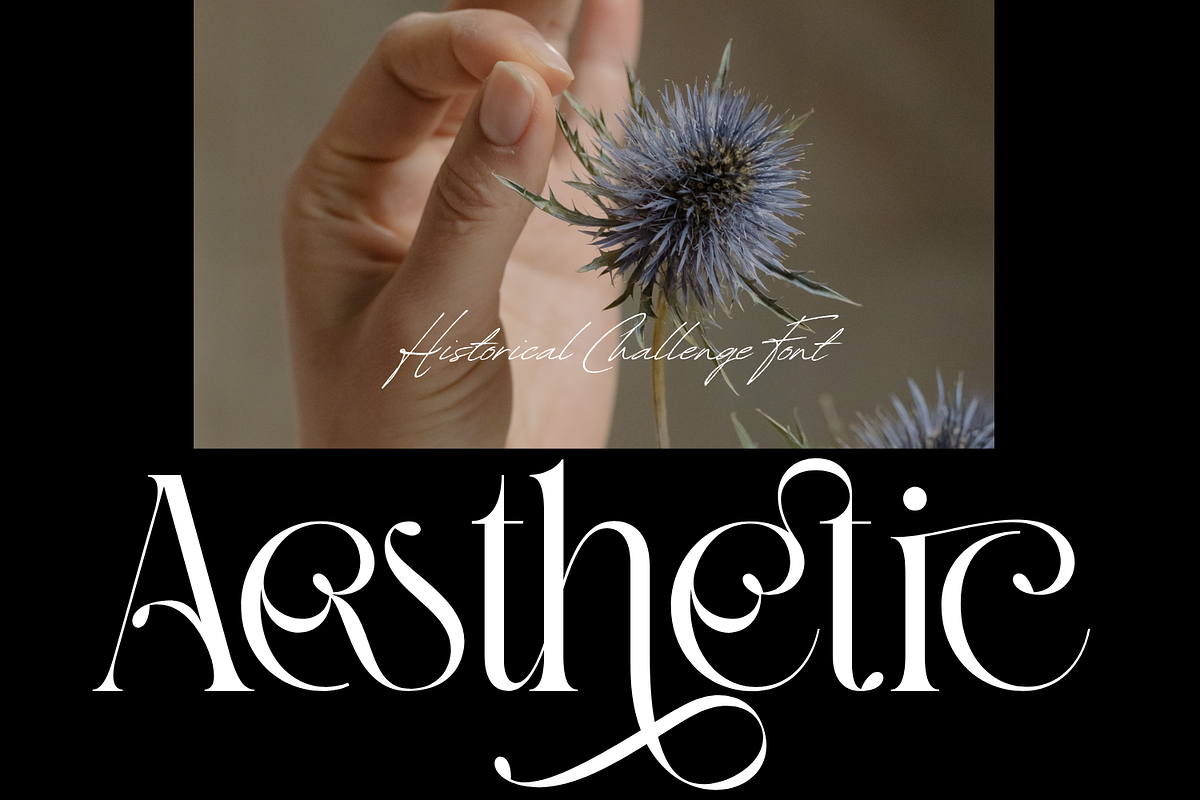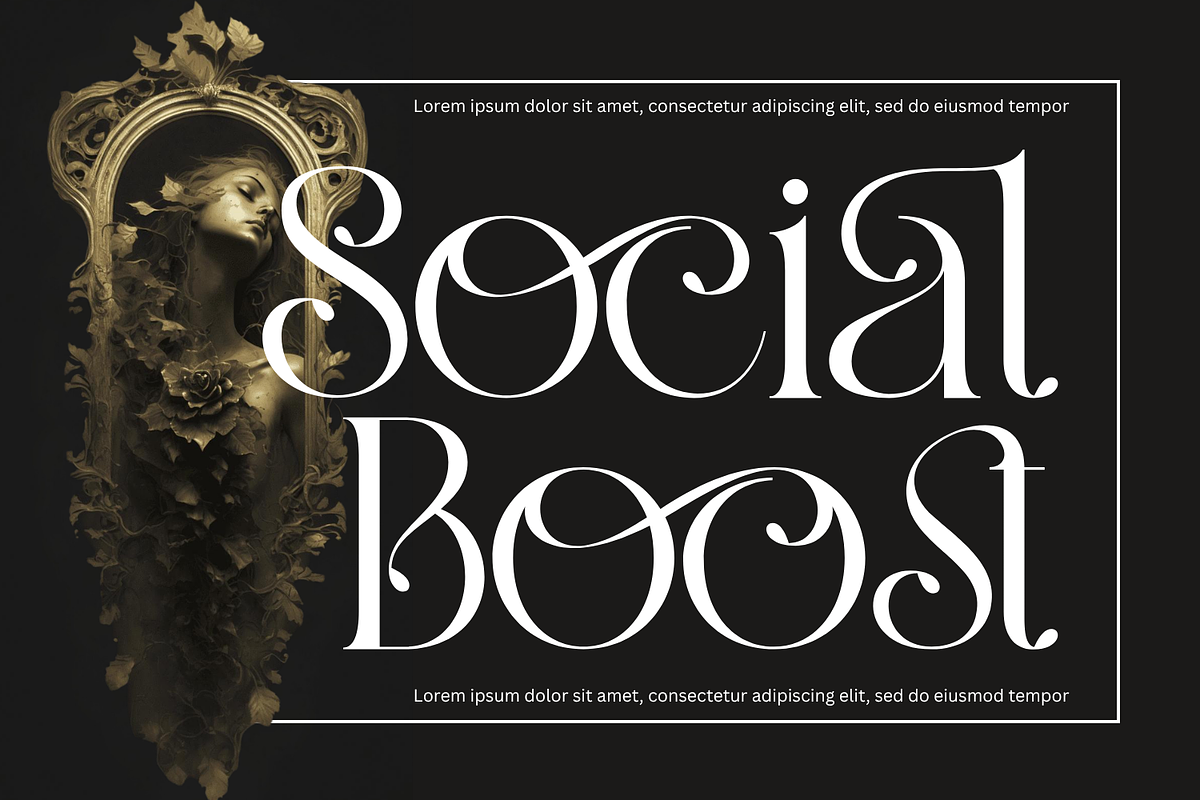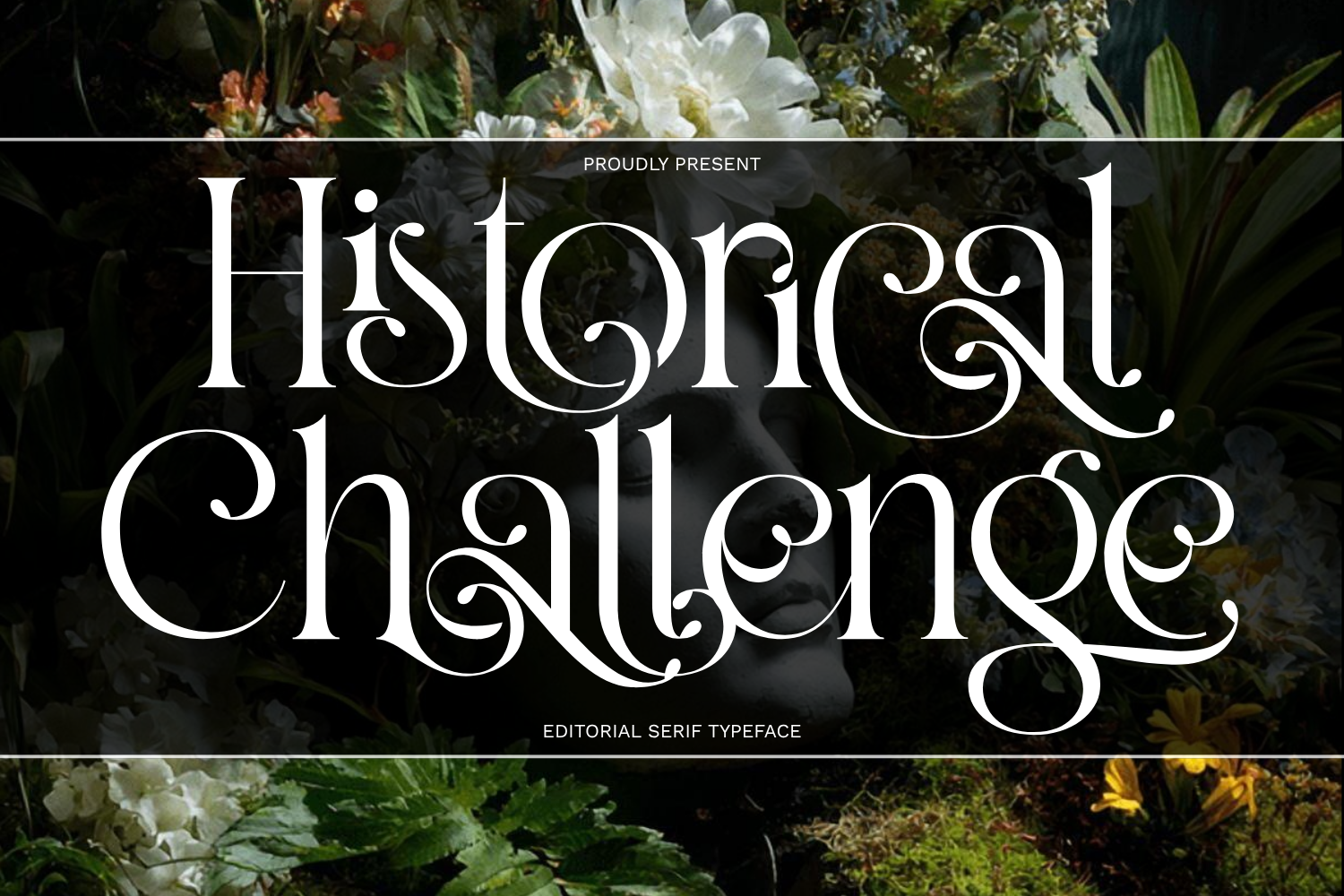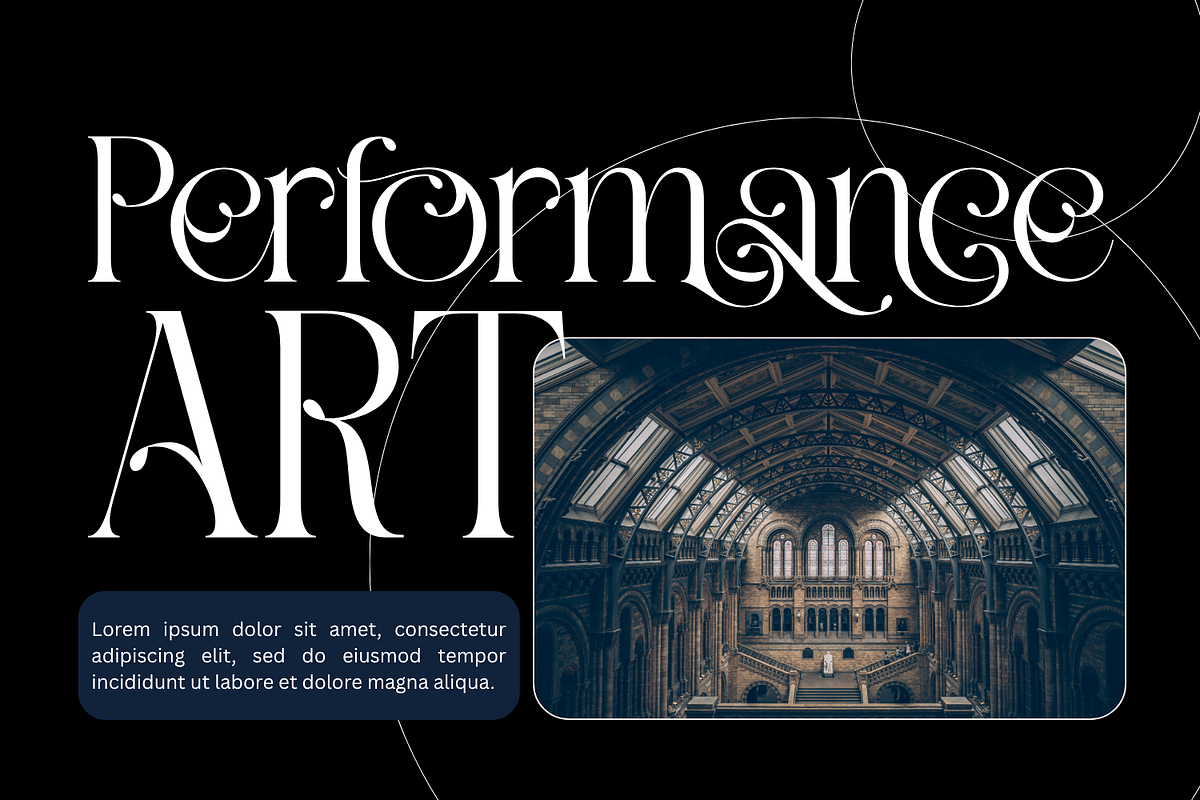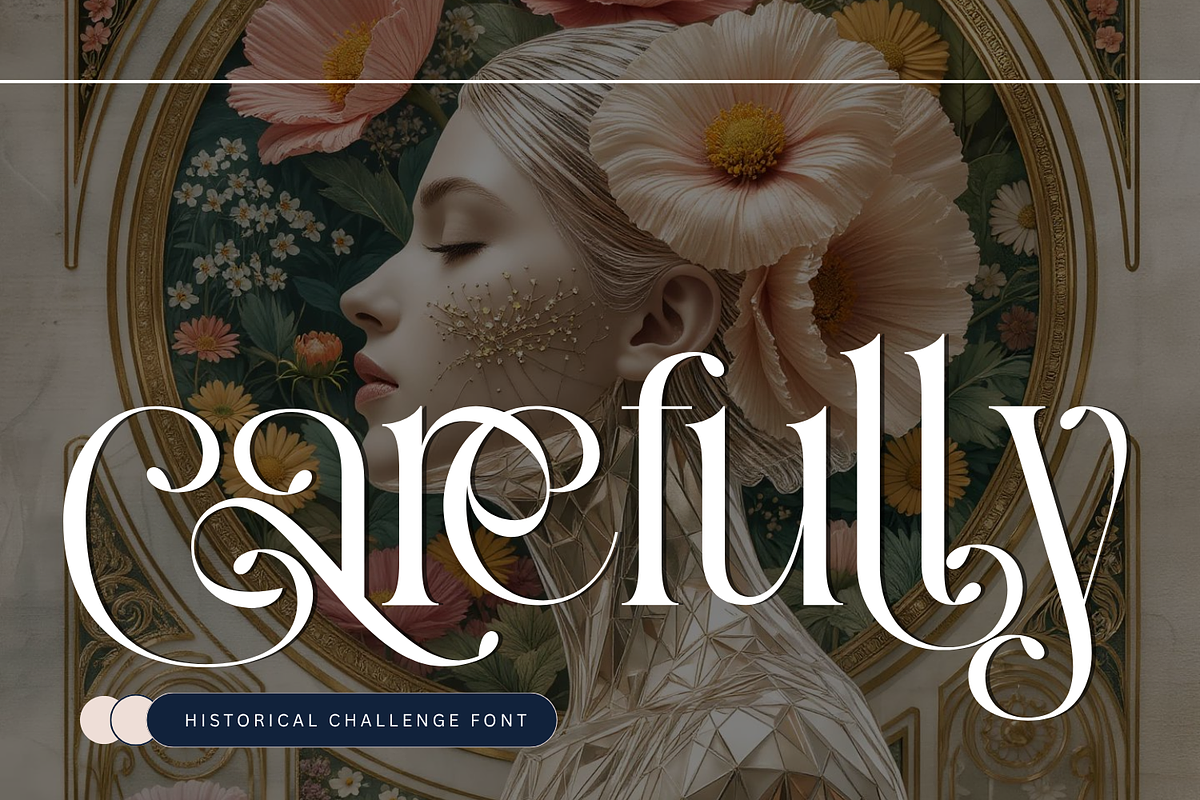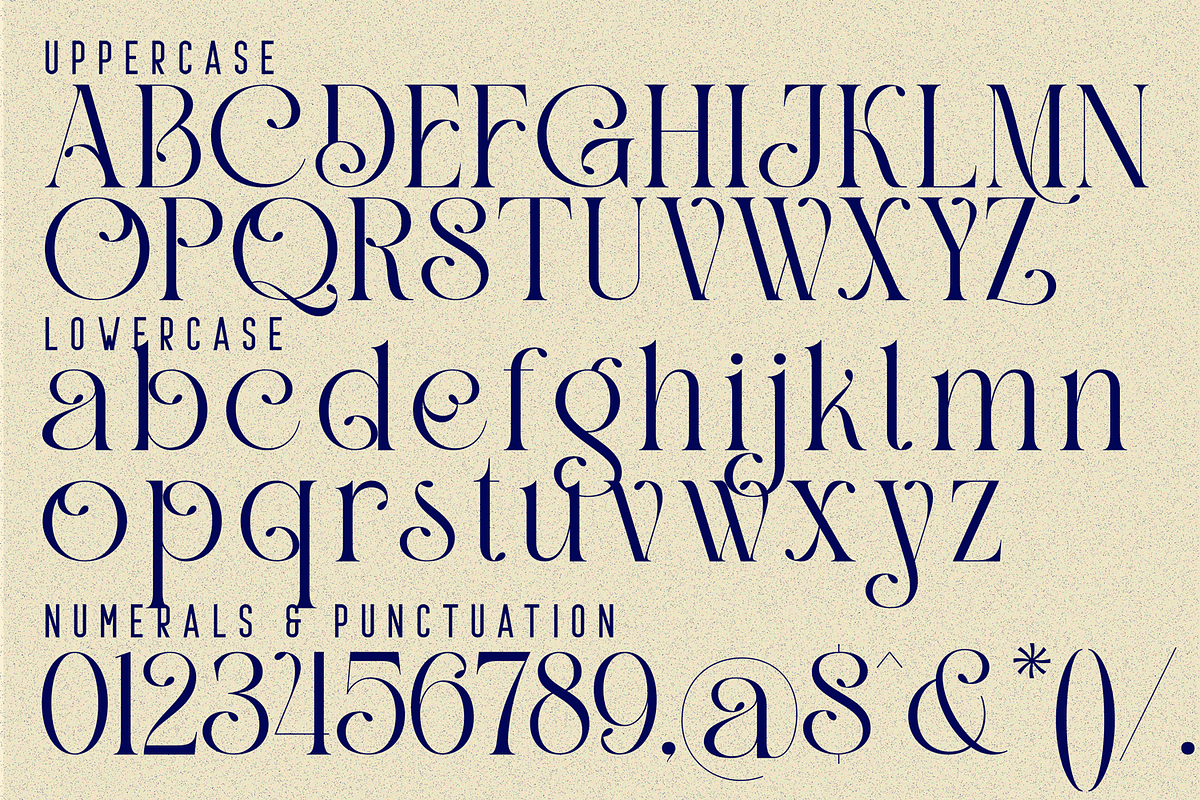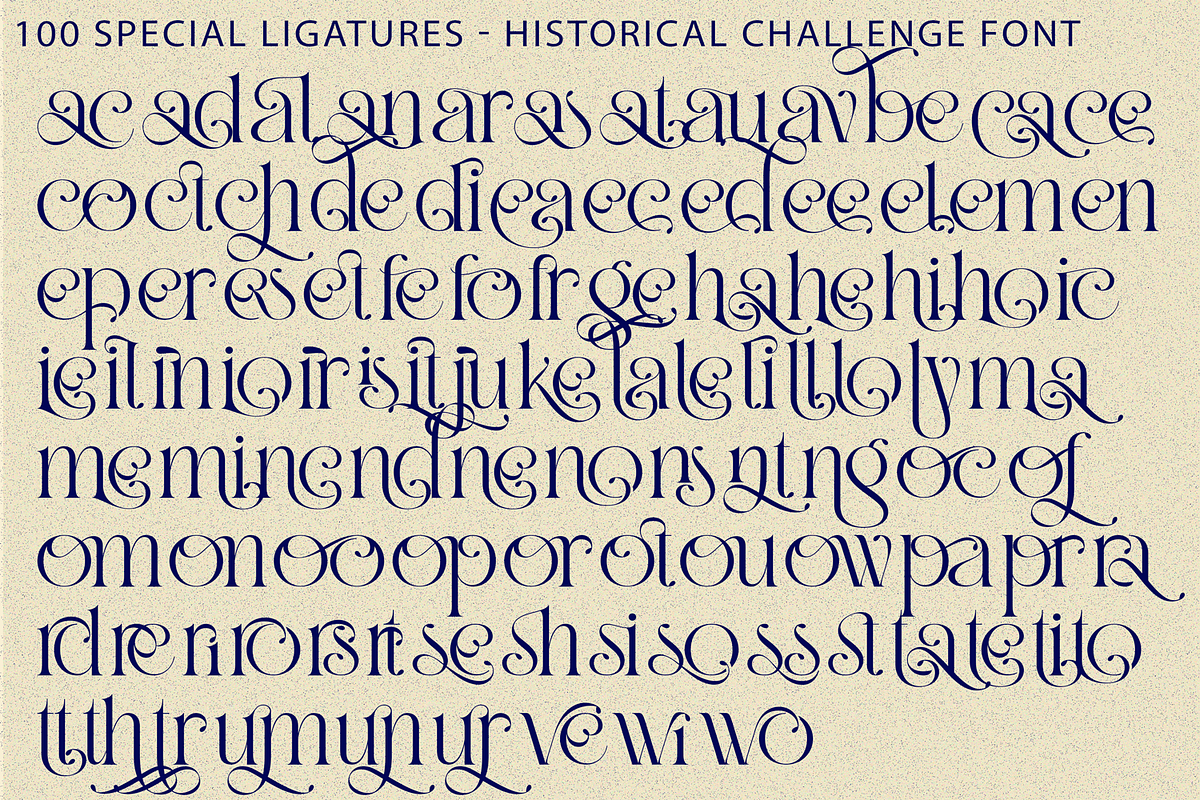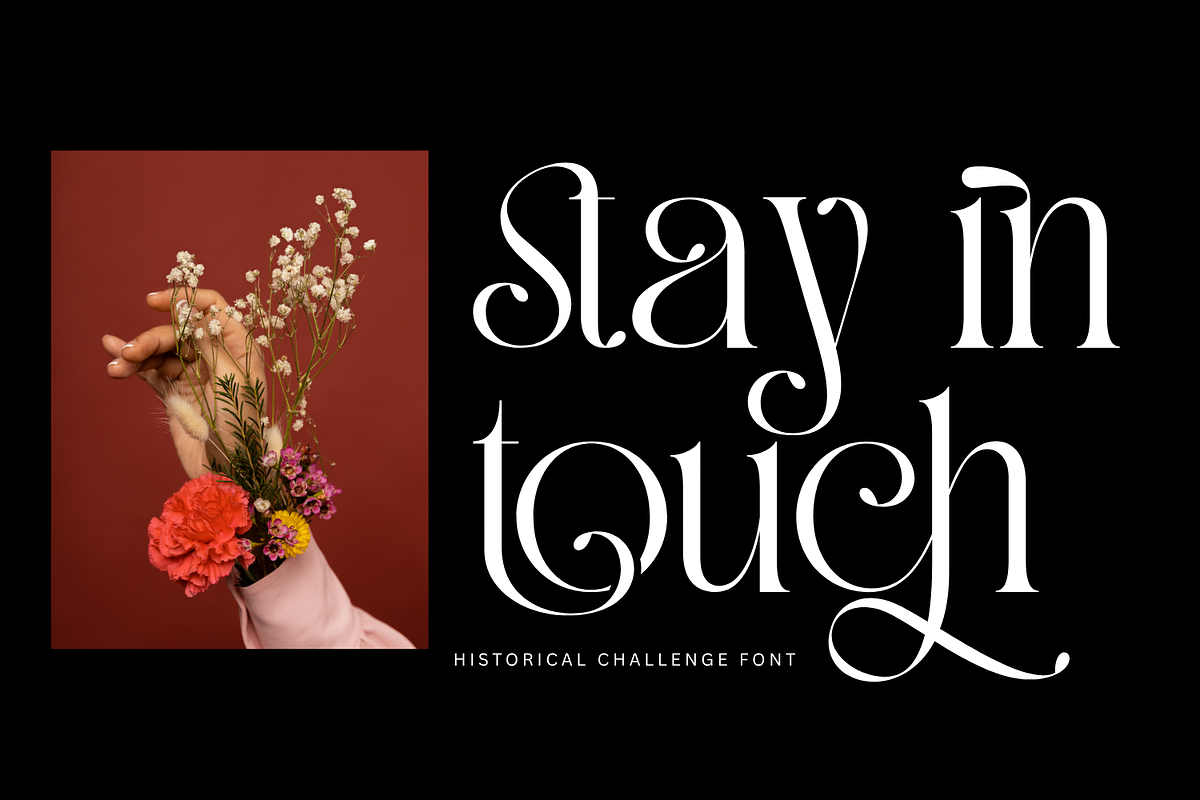
Historical Challenge Font
Historical Challenge Font – Modern Ornate Serif & Vintage Flourish Display Font, is an enchanting ornate serif font infused with vintage Victorian flourishes, intricate inner swirls, and romantic botanical swashes. Meticulously designed with high-contrast serif stems and graceful teardrop terminals, this typeface weaves classical Renaissance elegance with modern editorial sophistication.
Featuring elaborate curly alternates that coil inside letterforms and sweep dramatically through descenders, Historical Challenge empowers designers to instantly craft regal, fairytale-like typography. It is the ultimate display choice for vintage wedding invitations, fantasy literature book covers, luxury botanical packaging, antique wine labels, fashion magazine headers, and high-end brand insignia.
🔤Features:
Uppercase & Lowercase Letters
Around 100 Special Ligatures & Alternates
Accented Characters for multilingual support
🔤About 100 ligatures combined with Stylistic Alternates Font:
ac ad al an ar as at au av be ca ce ch co ct de di ea ec ed ee el em en ep er es et fe fo fr ge ha he hi ho ie ic il in io ir is it ju ke la le li ll lo ly ma me mi nc nd ne ng no nt ns oc of om on oo op or ot ou ow pa pr ra rd re ri ro rs rt se sh si so ss st ta te th ti to tr tt um un ur ve wi wo